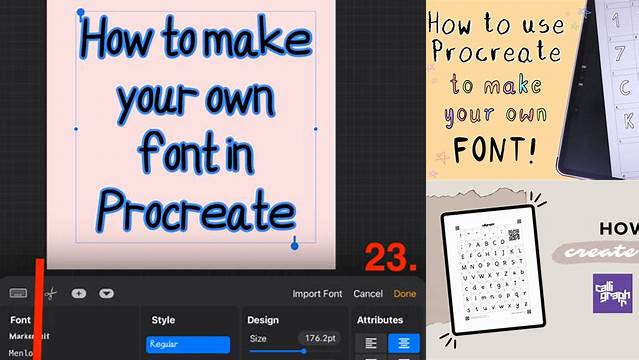
Create Fonts In Procreate: A Step-by-Step Guide
So, you're looking to spice up your digital art with personalized typography, huh? Awesome! Learning how to create fonts on Procreate can seriously elevate your creative projects. Forget generic typefaces – imagine crafting lettering that’s uniquely you. This guide will break down the process, making it easy (and fun!) to design fonts that truly stand out. Let's dive in, guys!
1. Understanding Font Basics for Procreate
Before we jump into the nitty-gritty of Procreate, let's get a grip on some font fundamentals. Understanding these basics will give you a solid foundation and help you make informed decisions when designing your own fonts. When diving into how to create fonts on Procreate, it's essential to know that fonts are more than just collections of letters; they're carefully designed systems. Think about the different parts of a letter – the ascenders, descenders, x-height, and serifs. These elements contribute to the overall look and feel of a font. Experimenting with these components in Procreate can result in a font that’s perfectly tailored to your style. Consider the contrast between thick and thin strokes, the overall weight of the font (light, regular, bold), and the spacing between letters (kerning). These factors drastically impact readability and visual appeal. Don't be afraid to sketch out different letterforms and variations before committing to a final design. Look at existing fonts for inspiration, but always strive to put your unique spin on things. Remember, the best fonts are those that reflect your personal style and creative vision. By mastering the basics, you’ll be well on your way to designing fonts that not only look great but also enhance your artwork. So, grab your Apple Pencil and let's get started!
2. Setting Up Your Procreate Canvas for Font Design
Alright, let's get practical! Setting up your Procreate canvas correctly is crucial for ensuring your font designs are precise and consistent. When starting to figure out how to create fonts on Procreate, the canvas size matters. A larger canvas (e.g., 4000x4000 pixels) gives you more room to work and allows for finer details. But remember, a super high resolution might slow down Procreate, especially on older iPads. Find a balance that works for you. Enabling the drawing guide is a game-changer. Go to Actions > Canvas > Drawing Guide and turn it on. Then, tap “Edit Drawing Guide” to customize the grid. A consistent grid will help you maintain uniform letter heights and spacing, which is essential for a professional-looking font. Experiment with different grid sizes to see what works best for your desired font style. Some designers prefer a square grid, while others find a more detailed grid with subdivisions more helpful. Using layers effectively is also vital. Create separate layers for different parts of each letter (e.g., stems, curves, serifs). This allows you to easily adjust individual elements without affecting the rest of the letterform. Label your layers clearly to keep things organized – trust me, you'll thank yourself later! Also, consider creating a template layer with guidelines for your x-height, ascender height, and descender depth. This will ensure consistency across all your letters. Remember, the goal is to create a digital workspace that supports precision and efficiency. A well-organized canvas will make the entire font design process smoother and more enjoyable.
3. Designing Basic Letterforms in Procreate
Now for the fun part – designing the letters themselves! Start with the basic letterforms, like 'H', 'O', and 'N'. These letters contain fundamental shapes and strokes that you can adapt for other characters. When considering how to create fonts on Procreate, focusing on these core letters first is a smart move. Use the drawing tools in Procreate to sketch out your letterforms. The monoline brush is a good starting point for creating consistent stroke weights. Experiment with different brush sizes and opacity levels to achieve the desired effect. Don't be afraid to zoom in and refine your lines – precision is key. Think about the overall style you're aiming for. Is it a clean, modern sans-serif, or a more ornate serif font? Let your chosen style guide your design decisions. Pay attention to the proportions of each letter. The height, width, and spacing should be visually balanced. Use your drawing guide to ensure consistency across all characters. Remember, consistency is what makes a font look professional and cohesive. Once you're happy with the basic letterforms, you can start creating variations and adding unique details. Experiment with different stroke endings, serifs, and decorative elements. Don't be afraid to get creative and push the boundaries of traditional typography. The beauty of designing your own fonts is that you have complete control over the creative process. So, let your imagination run wild and see what you can come up with!
4. Refining Curves and Lines for Smoothness
One of the biggest challenges in font design is achieving smooth, clean curves and lines. Procreate offers several tools and techniques to help you refine your letterforms and eliminate any unwanted jaggedness. When mastering how to create fonts on Procreate, understanding these tools is essential. The StreamLine feature is your best friend. It smooths out your strokes in real-time, making it easier to create flowing curves. You can adjust the StreamLine amount in the Brush Studio to find the perfect balance between smoothness and responsiveness. Experiment with different settings to see what works best for your drawing style. Another useful technique is to use the Selection tool to isolate specific areas of your letterforms and then use the Liquify tool to subtly adjust their shape. This allows you to fine-tune curves and lines without having to redraw them completely. The Liquify tool can also be used to add subtle variations and imperfections, which can give your font a more organic and hand-drawn feel. Just be careful not to overdo it, as too much distortion can make your letters look unnatural. When refining your letterforms, it's important to zoom in and examine your lines closely. Look for any sharp corners, uneven curves, or inconsistencies in stroke weight. Use the Eraser tool to carefully smooth out any rough edges. Remember, attention to detail is what separates amateur fonts from professional ones. Don't be afraid to spend time refining your curves and lines until they are perfectly smooth and visually appealing.
5. Adding Serifs and Details to Your Font
Serifs are those little decorative strokes at the ends of letters, and they can dramatically change the look and feel of your font. Adding serifs and other details is a great way to add personality and character to your designs. When delving into how to create fonts on Procreate, consider that serif fonts tend to have a more traditional and formal appearance, while sans-serif fonts are generally considered more modern and clean. Experiment with different serif styles to see what works best for your font. You can create bracketed serifs (which have a curved transition between the serif and the stem) or unbracketed serifs (which have a more abrupt transition). The shape and size of your serifs can also have a big impact on the overall aesthetic of your font. In addition to serifs, consider adding other details to your letters, such as swashes, ligatures, or decorative elements. Swashes are extended strokes that add flair and elegance to certain letters, while ligatures are special characters that combine two or more letters into a single glyph. These details can add a touch of sophistication and uniqueness to your font. When adding details to your font, it's important to maintain consistency and balance. Don't overdo it with too many decorative elements, as this can make your font look cluttered and overwhelming. Choose a few key details that complement the overall style of your font and use them sparingly. Remember, the goal is to enhance the visual appeal of your font without sacrificing readability.
6. Creating Uppercase and Lowercase Letters
Designing both uppercase and lowercase letters is essential for creating a complete and versatile font. While uppercase letters are often used for headings and titles, lowercase letters are the workhorses of body text. When considering how to create fonts on Procreate, think about the relationship between your uppercase and lowercase letters. They should complement each other in terms of style, weight, and proportions. Start by designing your uppercase letters first, as they tend to be more visually dominant. Use your basic letterforms as a starting point and then create variations for each uppercase character. Pay attention to the height and width of your uppercase letters, as these will influence the overall appearance of your font. Once you're happy with your uppercase letters, you can move on to designing your lowercase letters. The x-height (the height of the lowercase 'x') is a crucial factor in determining the readability of your font. A larger x-height generally makes a font easier to read, while a smaller x-height can give it a more elegant and refined look. When designing your lowercase letters, pay attention to the ascenders (the parts of letters that extend above the x-height, such as 'b', 'd', and 'h') and the descenders (the parts of letters that extend below the baseline, such as 'g', 'j', and 'y'). The length and shape of your ascenders and descenders can have a big impact on the overall appearance of your font. Remember, the key is to create a harmonious balance between your uppercase and lowercase letters.
7. Number and Symbol Design
Don't forget about numbers and symbols! A complete font includes not only letters but also a full set of numbers, punctuation marks, and other symbols. When figuring out how to create fonts on Procreate, it is important to consider these additional characters to make your font truly useful. Numbers should be designed to match the style and proportions of your letters. Pay attention to the height and width of your numbers, as well as the thickness of their strokes. Consider whether you want your numbers to be proportional (where each number has a different width) or tabular (where all numbers have the same width). Tabular numbers are often preferred for financial documents and other applications where alignment is important. Punctuation marks and symbols should also be designed to complement the overall style of your font. Pay attention to the shape and size of your punctuation marks, as well as their placement relative to the letters. Consider whether you want your punctuation marks to be more formal or more casual. In addition to the standard set of punctuation marks, you may also want to include other symbols in your font, such as currency symbols, mathematical symbols, or dingbats. These symbols can add versatility and functionality to your font. Remember, the goal is to create a complete and cohesive font that includes all the characters that your users will need. Don't overlook the importance of numbers and symbols in making your font truly useful and versatile.
8. Kerning and Spacing Adjustment
Kerning and spacing are crucial for ensuring that your font is readable and visually appealing. Kerning refers to the adjustment of the space between individual pairs of letters, while spacing refers to the overall amount of space between all letters in a word. When thinking about how to create fonts on Procreate, keep in mind that proper kerning and spacing are essential for creating a professional-looking font. Start by setting the overall spacing of your font. The goal is to create a consistent and even amount of space between all letters. You can use the horizontal scale tool in Procreate to adjust the width of your letters, which will affect the overall spacing. Once you're happy with the overall spacing, you can start kerning individual pairs of letters. Some letter combinations, such as 'AV' or 'WA', may require more or less space than others. Use the Selection tool to isolate specific pairs of letters and then use the Move tool to adjust their position relative to each other. Pay attention to the visual appearance of the letters. The goal is to create an even and balanced amount of space between them. Don't be afraid to experiment with different kerning values until you find what looks best. Kerning can be a time-consuming process, but it's well worth the effort. Proper kerning and spacing will make your font more readable and visually appealing.
9. Testing Your Font in Different Sizes
Once you've designed your font, it's important to test it in different sizes to ensure that it looks good and is readable at all scales. A font that looks great at 72 points may not be as legible at 12 points. When figuring out how to create fonts on Procreate, testing your font at various sizes is an important step in the design process. Create a document in Procreate and type out some sample text using your font. Then, zoom in and out to see how your font looks at different sizes. Pay attention to the overall appearance of the letters, as well as their readability. Look for any areas where the letters become too crowded or too thin. If you notice any problems, you can go back and make adjustments to your font. You may need to adjust the stroke weight, spacing, or kerning to improve the legibility of your font at smaller sizes. It's also a good idea to test your font in different applications. Import your font into a word processor, graphic design program, or web browser and see how it looks in those environments. Different applications may render fonts differently, so it's important to test your font in a variety of contexts. Remember, the goal is to create a font that is versatile and readable at all sizes. Testing your font in different sizes is an essential step in ensuring that it meets those criteria.
10. Exporting Your Font from Procreate
Unfortunately, Procreate isn't designed for direct font exporting. You'll need to transfer your letter designs to a font-making program on your computer. This might sound daunting, but it's a necessary step in the how to create fonts on Procreate process. Export each letterform as a separate image file (PNG or JPG) from Procreate. Make sure the images are high resolution to avoid pixelation when you import them into your font-making software. Apps like Calligraphr (web-based) or Glyphs (desktop software) are popular choices. These programs allow you to import your letter images, trace them, and then generate a usable font file (usually in .OTF or .TTF format). Each program has its own workflow, so consult their respective tutorials for specific instructions. While it adds a step, this ensures your font is functional across various platforms and programs.
11. Choosing the Right Font-Making Software
As mentioned above, you'll need dedicated font-making software to turn your Procreate designs into a usable font. Figuring out the intricacies of how to create fonts on Procreate means accepting that you need external tools. Calligraphr is a great option for beginners, as it's web-based and relatively easy to use. You simply print out a template, draw your letters within the boxes, scan it back in, and upload it to the website. Calligraphr then converts your drawings into a font file. Glyphs is a more powerful and professional-grade option. It's desktop-based and offers a wider range of features and customization options. Glyphs is ideal for designers who want to create complex and sophisticated fonts. Other options include FontLab Studio and RoboFont. The best choice for you will depend on your budget, skill level, and the complexity of the fonts you want to create. Consider starting with a free trial of a few different programs to see which one you prefer. Each program has its own unique strengths and weaknesses, so it's important to find one that fits your workflow and creative style. Remember, the software is just a tool. The most important thing is your creativity and design skills.
12. Importing Your Procreate Designs into Font Software
Once you've chosen your font-making software, the next step is to import your Procreate designs. This process will vary depending on the software you're using, but the general idea is the same. Now that you know how to create fonts on Procreate and export the designs, it’s time to make it workable. In most programs, you'll start by creating a new font project. Then, you'll import your individual letter images into the corresponding glyph slots. Each glyph slot represents a specific character in your font (e.g., uppercase A, lowercase b, number 1). Make sure to import your letters in the correct order and assign them to the appropriate glyph slots. Some programs may offer automatic tracing features, which can help you convert your raster images into vector outlines. Vector outlines are essential for creating high-quality fonts that can be scaled without losing sharpness. If your software doesn't offer automatic tracing, you may need to manually trace your letters using the pen tool. This can be a time-consuming process, but it's important to ensure that your letterforms are accurate and consistent. Once you've imported and traced all of your letters, you can start refining their shapes and adjusting their spacing.
13. Tracing and Vectorizing Your Letterforms
Turning your raster-based Procreate designs into vector graphics is a crucial step in the font-making process. Vector graphics are scalable without losing quality, which is essential for creating fonts that look good at any size. After understanding how to create fonts on Procreate and getting them onto your computer, tracing and vectorizing should be your priority. As mentioned earlier, some font-making software offers automatic tracing features. These features can be a huge time-saver, but they're not always perfect. You may need to manually refine the outlines generated by the automatic tracing tool. If your software doesn't offer automatic tracing, you'll need to manually trace your letterforms using the pen tool. This can be a more challenging and time-consuming process, but it gives you more control over the final result. When tracing your letterforms, pay attention to the details. Try to capture the nuances of your original designs as accurately as possible. Use smooth curves and clean lines to create professional-looking outlines. Once you've traced all of your letterforms, you can start adjusting their anchor points and control handles to refine their shapes. Experiment with different techniques to find what works best for you.
14. Adjusting Baseline, X-Height, and Cap Height
These are fundamental typographic measurements that affect the overall appearance and readability of your font. The baseline is the imaginary line on which the letters sit. The x-height is the height of the lowercase 'x', and the cap height is the height of the uppercase letters. When diving into how to create fonts on Procreate and digitizing them, these adjustments are vital. Setting the correct baseline, x-height, and cap height is essential for creating a font that looks balanced and harmonious. The x-height is particularly important, as it affects the legibility of your font. A larger x-height generally makes a font easier to read, while a smaller x-height can give it a more elegant and refined look. The relationship between the x-height and the cap height is also important. The cap height should be proportionally larger than the x-height, but not too much larger. Experiment with different ratios to find what looks best for your font. In most font-making software, you can adjust the baseline, x-height, and cap height using numerical values. You can also visually adjust these measurements by dragging the baseline, x-height line, and cap height line in the font editor window. Remember, the goal is to create a font that looks balanced and harmonious. Adjusting the baseline, x-height, and cap height is an essential step in achieving that goal.
15. Creating Font Metadata (Name, Version, Copyright)
Font metadata is the information that is embedded within the font file, such as the font name, version number, copyright information, and designer information. While mastering how to create fonts on Procreate is about the design, this information allows users to identify and use your font correctly. This information is important for several reasons. First, it allows users to identify and distinguish your font from other fonts. Second, it protects your intellectual property rights. Third, it provides information about the font's history and development. In most font-making software, you can enter the font metadata in the font info panel. Be sure to include the following information: Font name: Choose a unique and descriptive name for your font. Version number: Start with version 1.0 and increment the version number each time you make significant changes to the font. Copyright information: Include your name or company name and the copyright year. Designer information: Include your name and contact information. You may also want to include a description of your font and its intended use. Creating font metadata is an essential step in the font-making process. It ensures that your font is properly identified and protected.
16. Generating Font Files (OTF, TTF)
The final step in the font-making process is to generate the font files. The two most common font file formats are OTF (OpenType Font) and TTF (TrueType Font). After all the hard work of learning how to create fonts on Procreate, this step makes it real. OTF fonts are generally preferred because they support more advanced typographic features, such as ligatures, kerning pairs, and stylistic alternates. TTF fonts are older and have more limited features, but they are still widely supported. In most font-making software, you can generate font files by going to the File menu and selecting Export Font. You'll be prompted to choose the font file format (OTF or TTF) and the output directory. You may also be able to customize other settings, such as the font embedding options. Once you've generated the font files, you can install them on your computer and use them in your favorite applications. You can also distribute your font files to others, either for free or for a fee. Remember, it is very important to choose the right format.
17. Installing Your Font on Your iPad
Okay, so you've made your font, exported it, and now you want to use it on your iPad, right? Well, since you started designing with how to create fonts on Procreate, let’s see how to use them on your device. Getting your newly created font onto your iPad isn't as straightforward as installing an app, but it's totally doable. You'll need a font installation app. There are several available on the App Store, like iFont or AnyFont. Download one of these. Then, you'll need to get the font file (.OTF or .TTF) onto your iPad. The easiest way is usually through cloud storage like Dropbox or Google Drive. Upload the font file to your cloud storage on your computer. On your iPad, open the font installation app and connect it to your cloud storage. Navigate to your font file and select it. The app will then guide you through the installation process. Once installed, the font should be available for use in apps that support custom fonts, like Procreate, Pages, and Keynote. Keep in mind that some apps may not support custom fonts. If you don't see your font listed in the font selection menu, it's likely that the app doesn't support custom fonts.
18. Using Your Custom Font in Procreate Projects
Now for the really fun part! Using your very own font in your Procreate creations. You invested time in learning how to create fonts on Procreate and this is where it pays off. Open Procreate and create a new canvas or open an existing project. Tap the wrench icon to open the Actions menu. Select